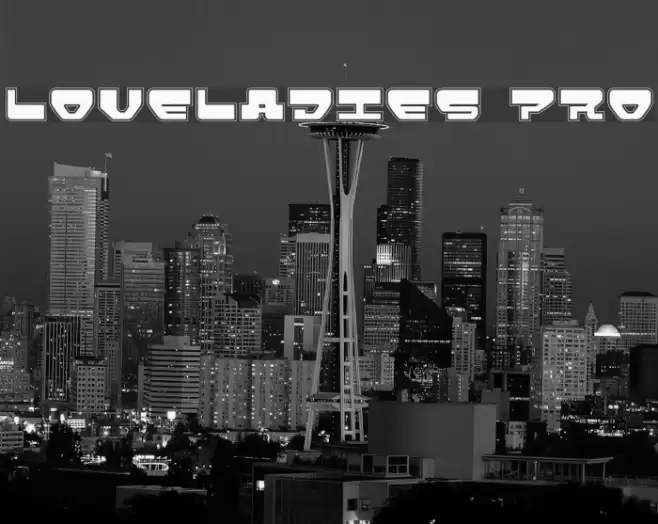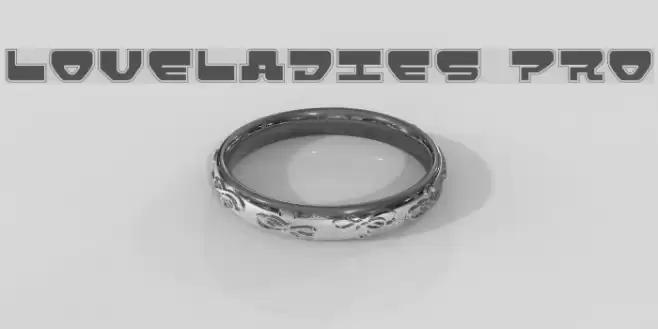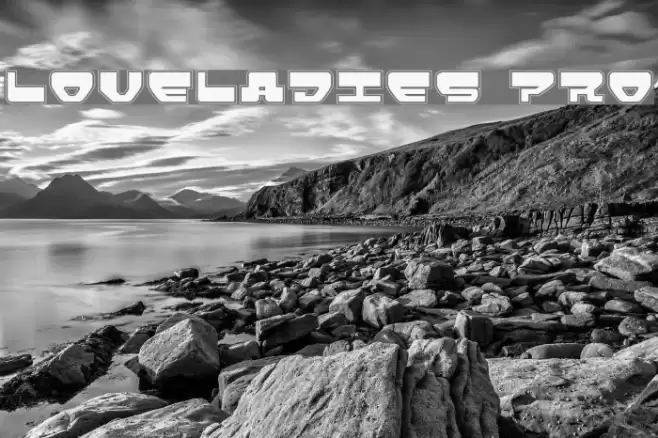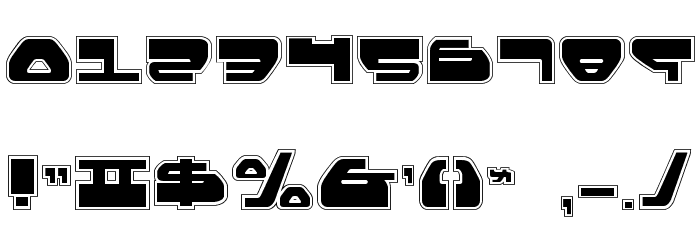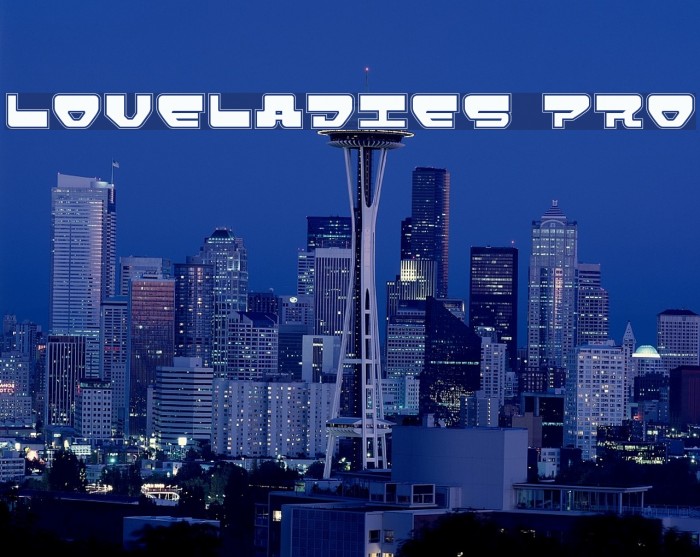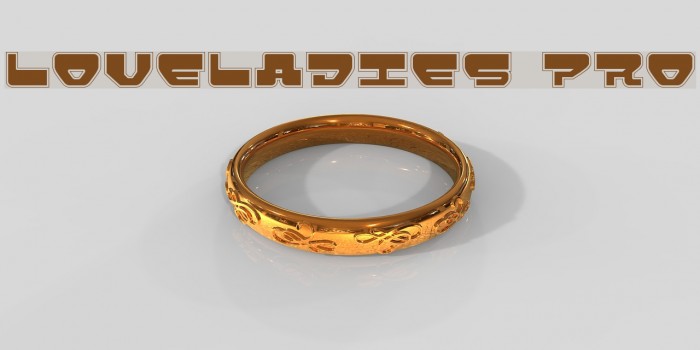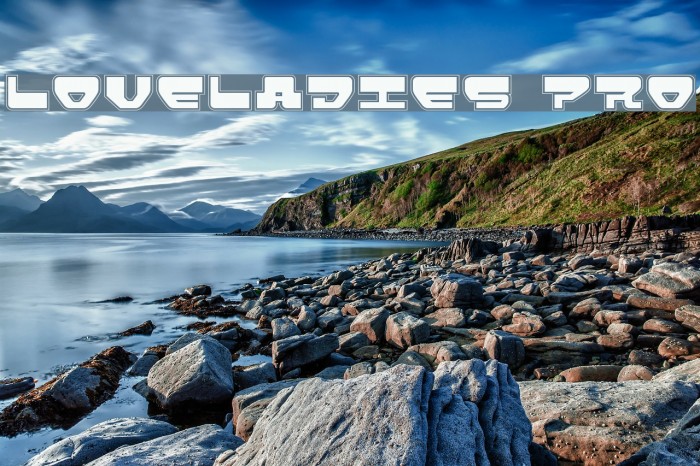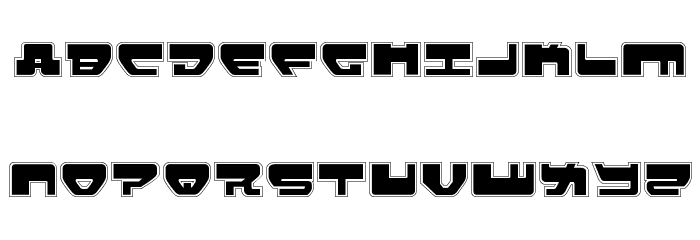
Loveladies Pro Font
Loveladies Pro Description
This font features a bold, futuristic design with a strong geometric influence. The characters are constructed with thick, block-like strokes that give them a heavy, impactful presence. The angular cuts and sharp edges add a dynamic and modern feel, making it stand out in any design. The uppercase and lowercase letters maintain a consistent style, with the lowercase slightly more compact. Numbers and special characters follow the same bold and structured aesthetic, ensuring uniformity across all elements. The font's unique style is ideal for projects that require a strong visual impact.
A bold, futuristic font with geometric and angular design elements from Valentine's Day fonts.
- Proposed Projects: Ideal for sci-fi themed projects, video game titles, posters, and branding that requires a modern and bold statement.